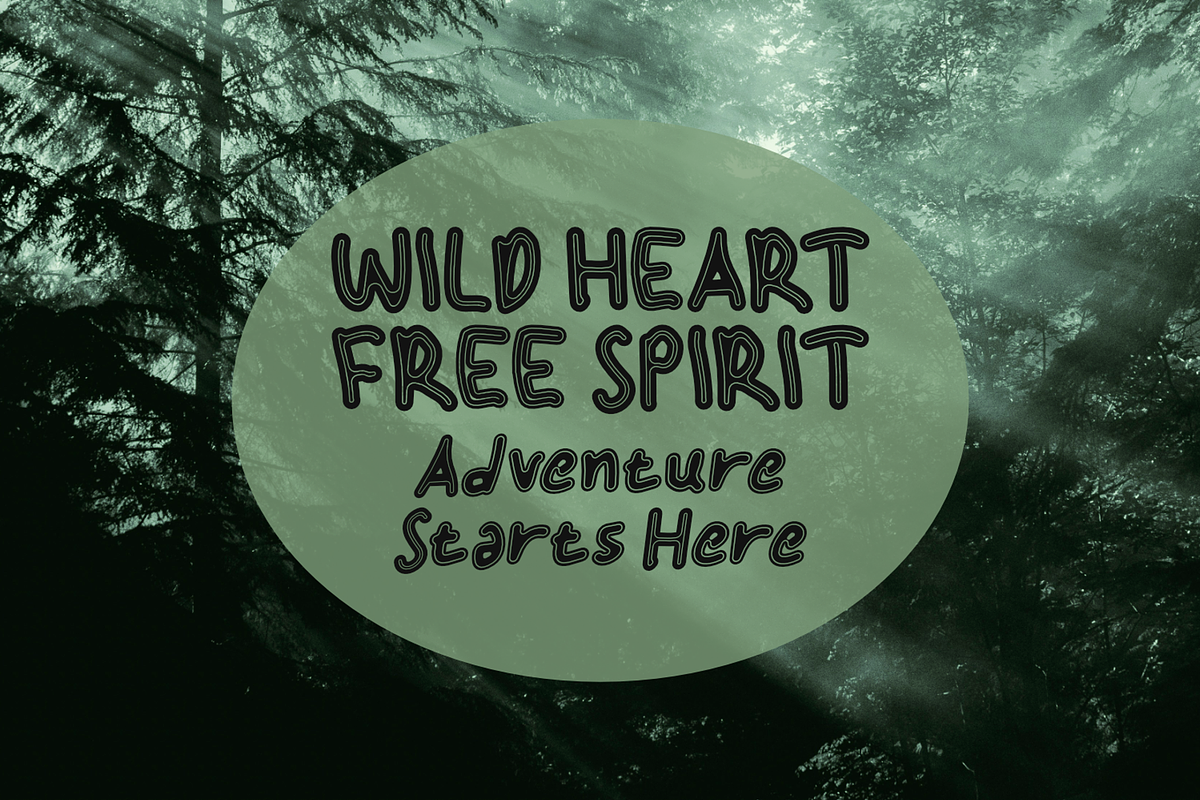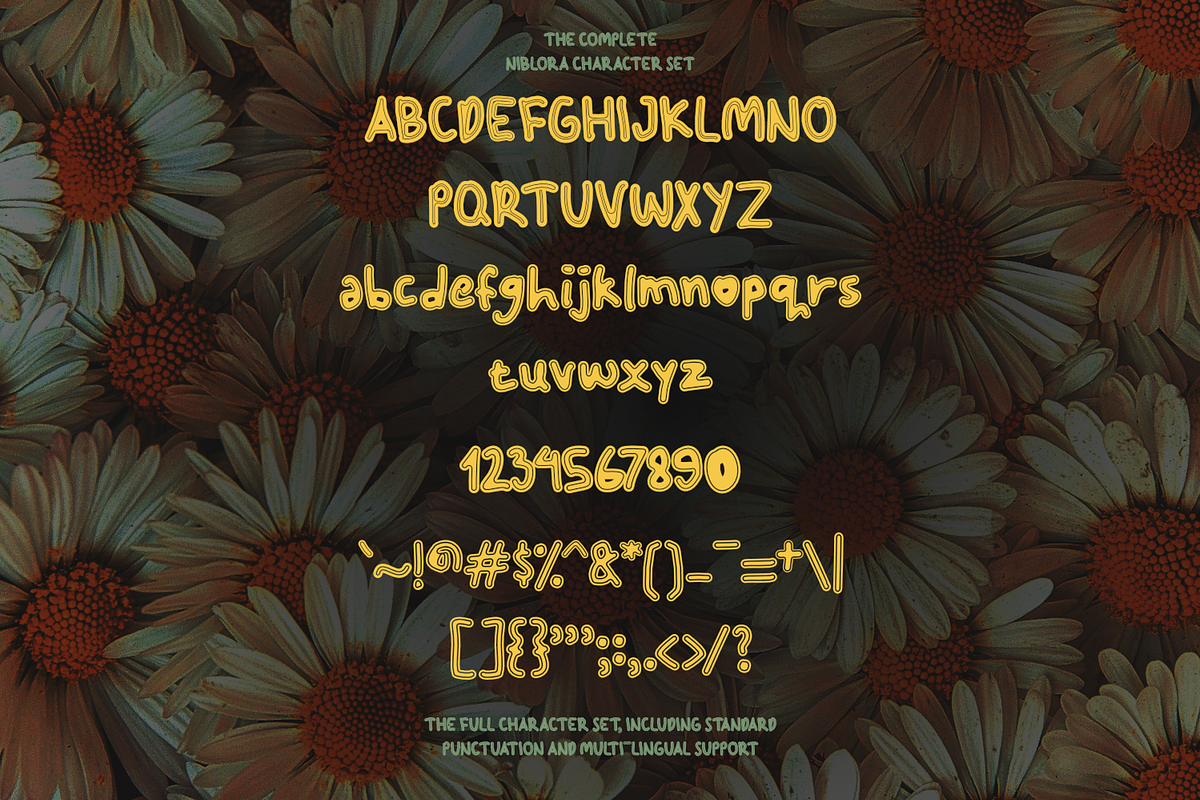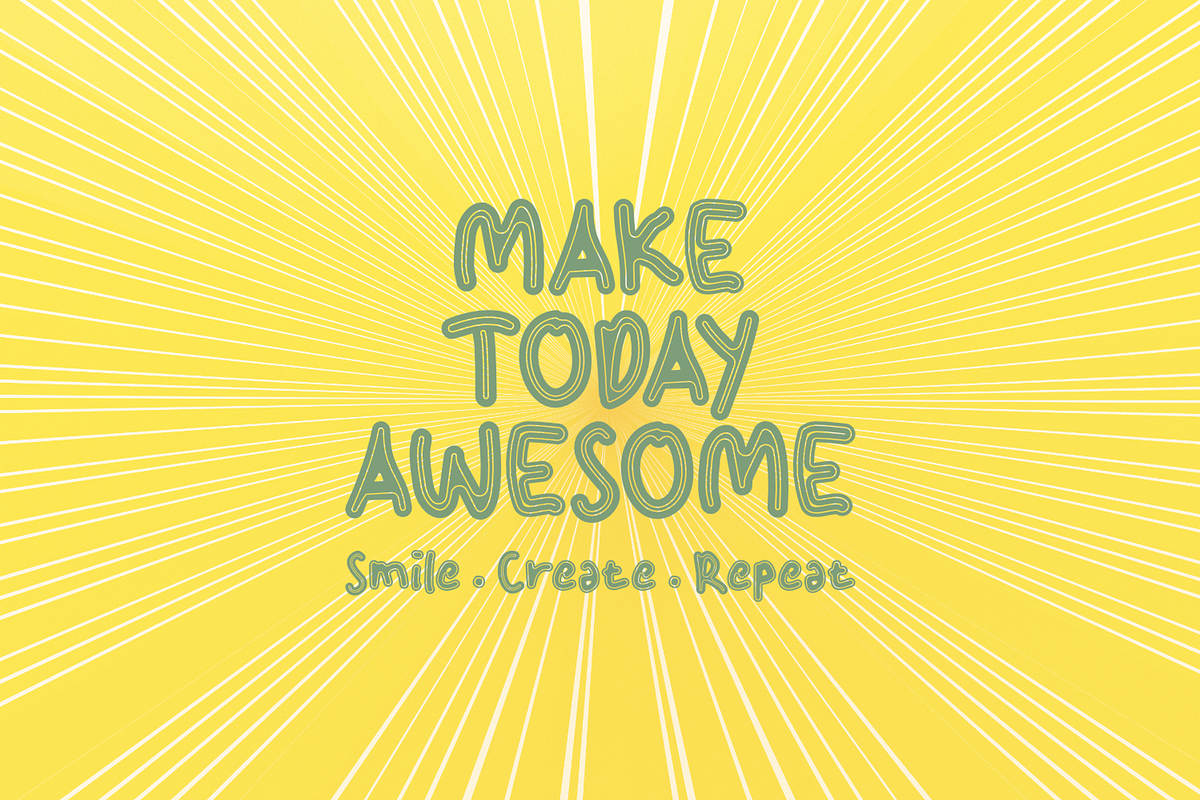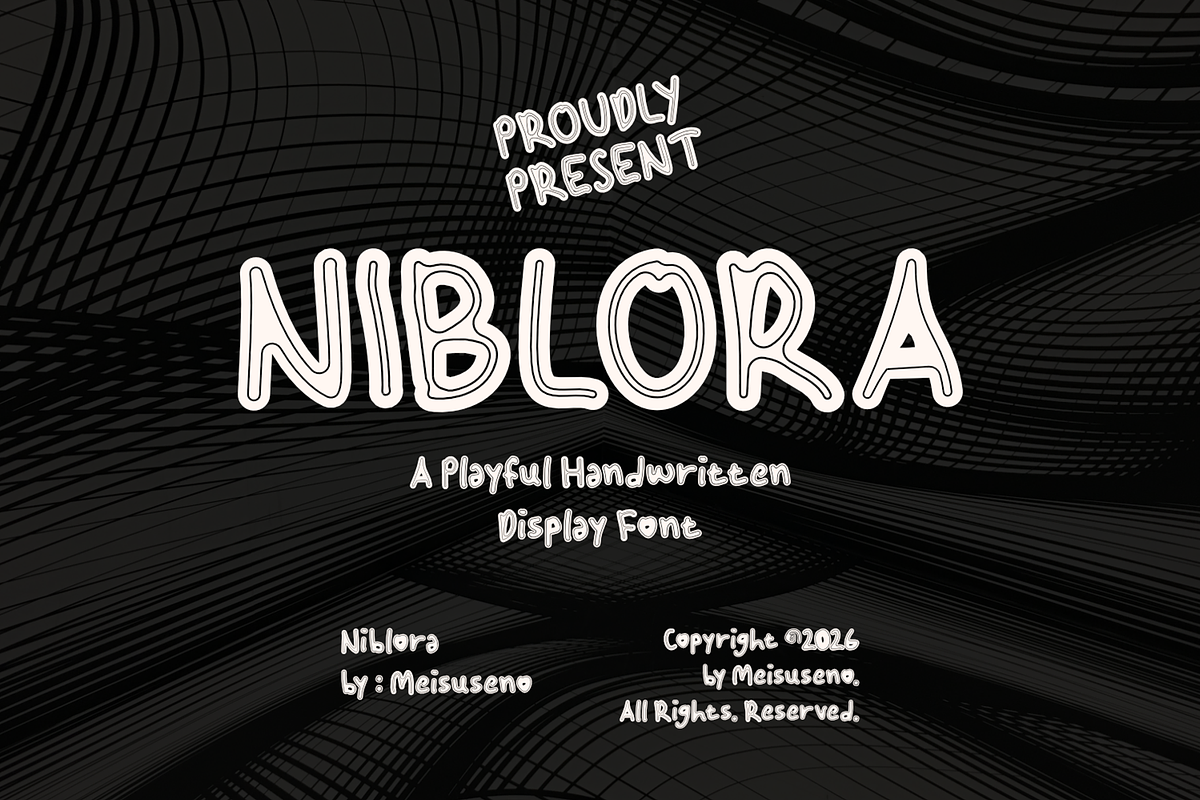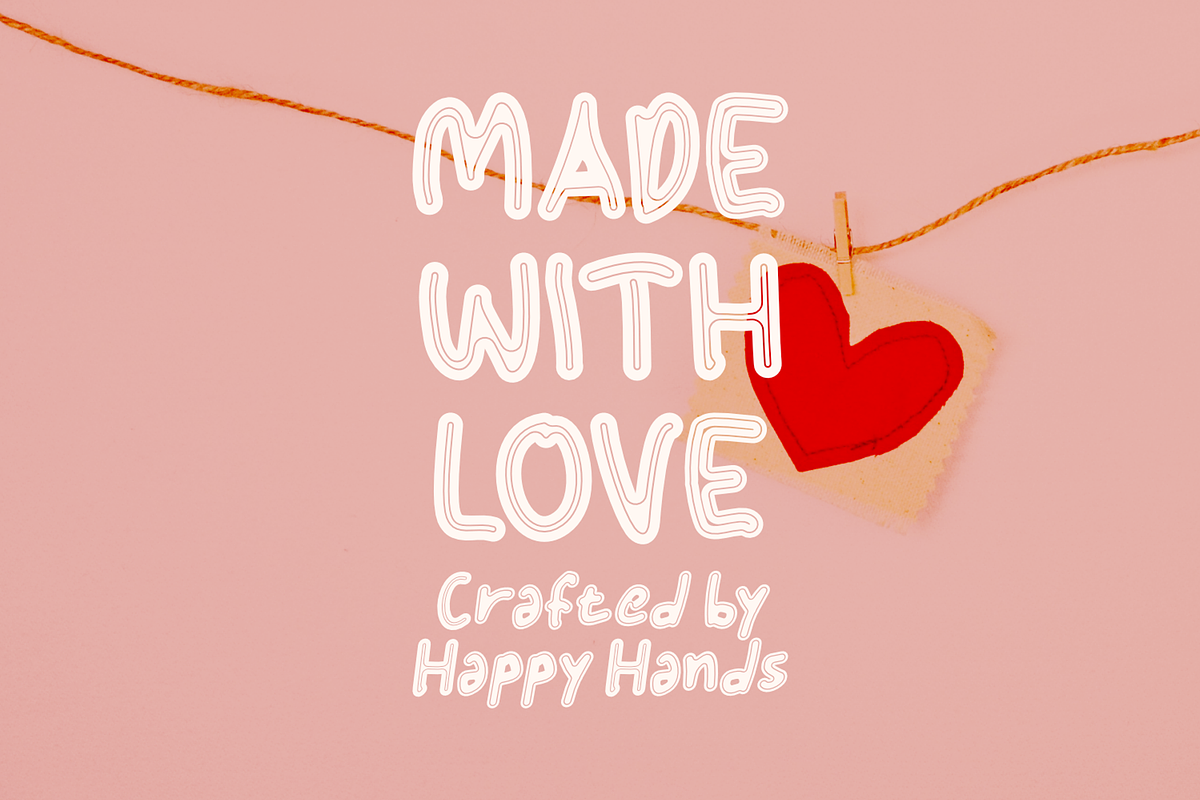
Niblora Playful Display Font
Niblora is a playful hand-drawn display font with bold outlined letterforms and a charming vintage personality. Designed to bring warmth, creativity, and fun into every project, this font features organic curves and a handcrafted feel that instantly catches attention. Its unique bubble-style outline makes it perfect for creating eye-catching headlines while maintaining a friendly and approachable look.
Whether you're designing logos, branding, packaging, posters, social media graphics, children's products, stickers, apparel, greeting cards, book covers, or creative merchandise, Niblora adds a joyful retro touch that makes every design stand out. Inspired by nostalgic hand-lettering and modern vintage aesthetics, this font is ideal for designers looking to create bold, cheerful, and memorable typography.
Bring your ideas to life with Niblora—a fun display font made for colorful, creative, and expressive designs.